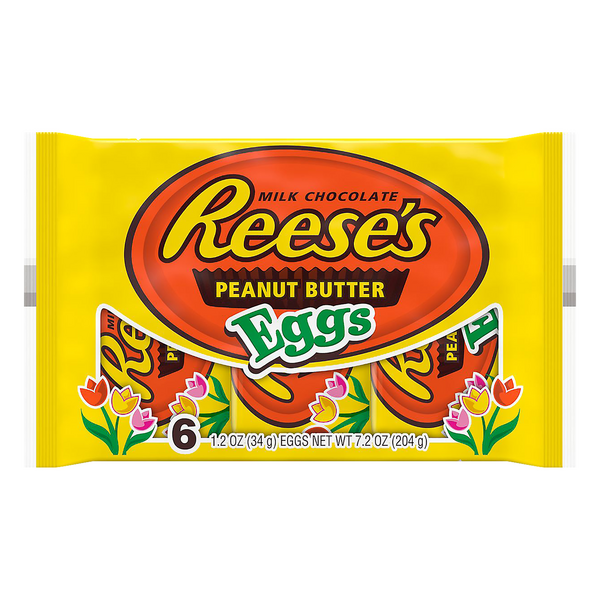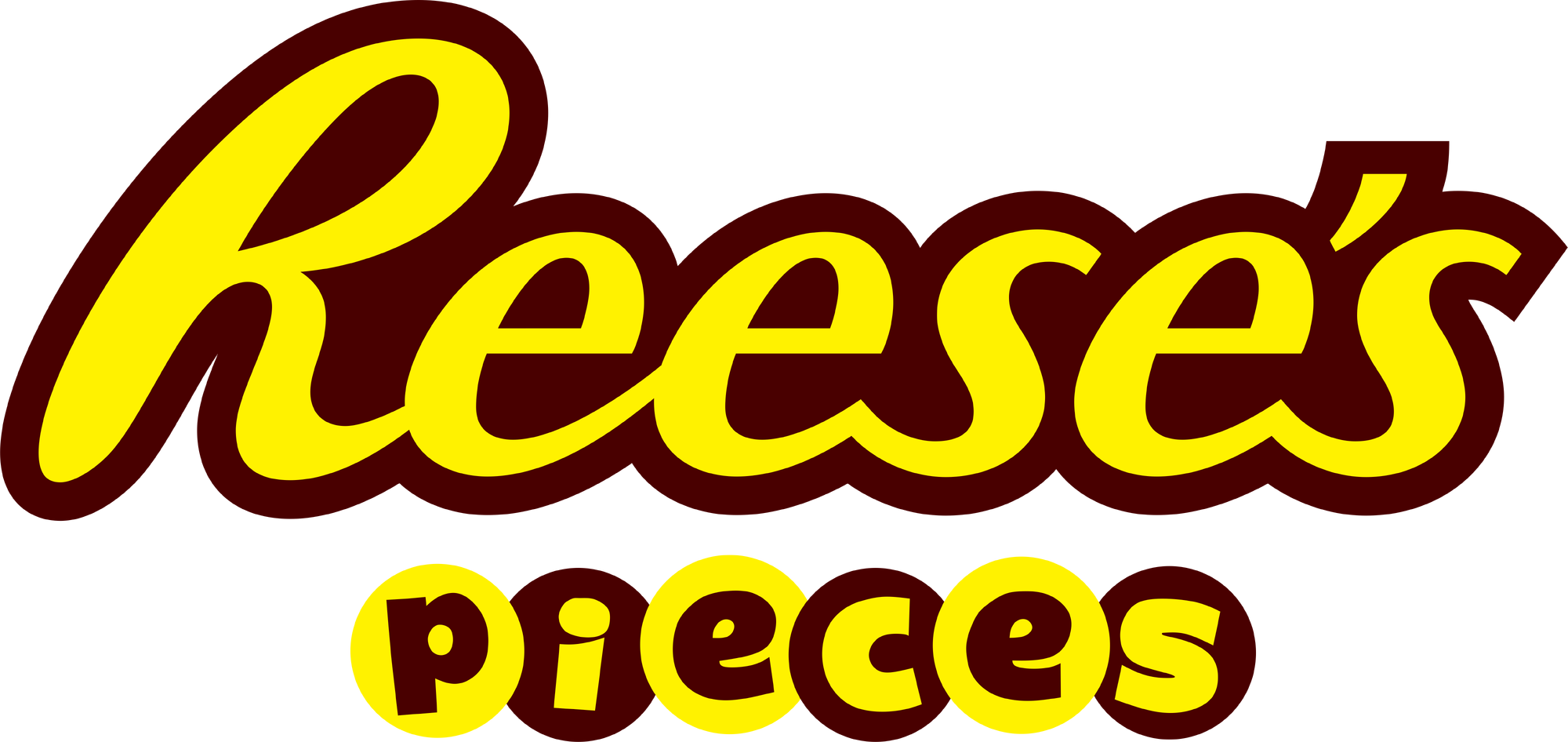
Reese's Font February 19, 2021Entertainment Reese's Font : Reeses font is an art decorative themed display font with multilingual letters, numbers, and punctuation.